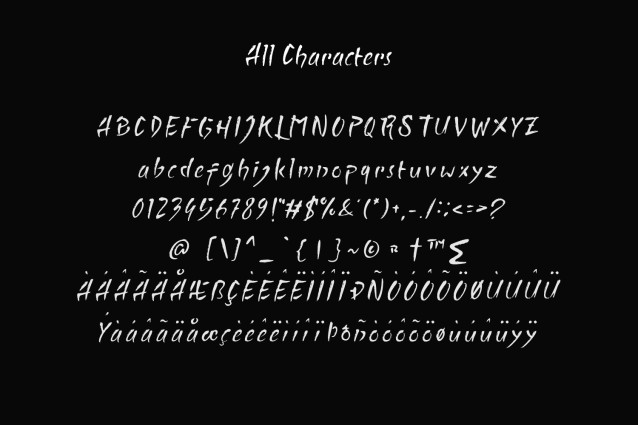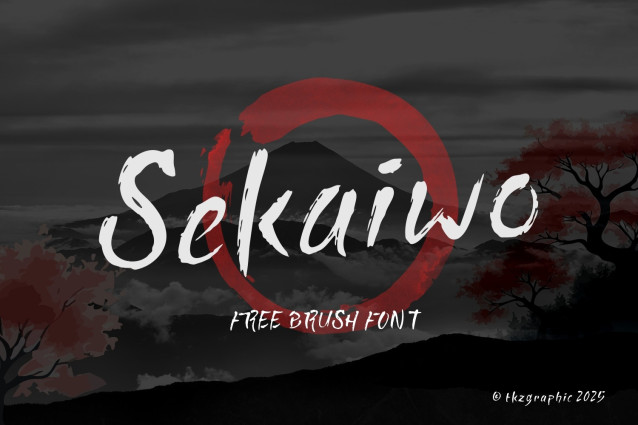
Sekaiwo Brush Font
Sekaiwo Brush Font is a traditional hand-drawn font inspired by Japanese calligraphy, known for its playful and rebellious spirit. This font captures the essence of defiance and creativity, combining traditional Japanese brush strokes with a modern touch.